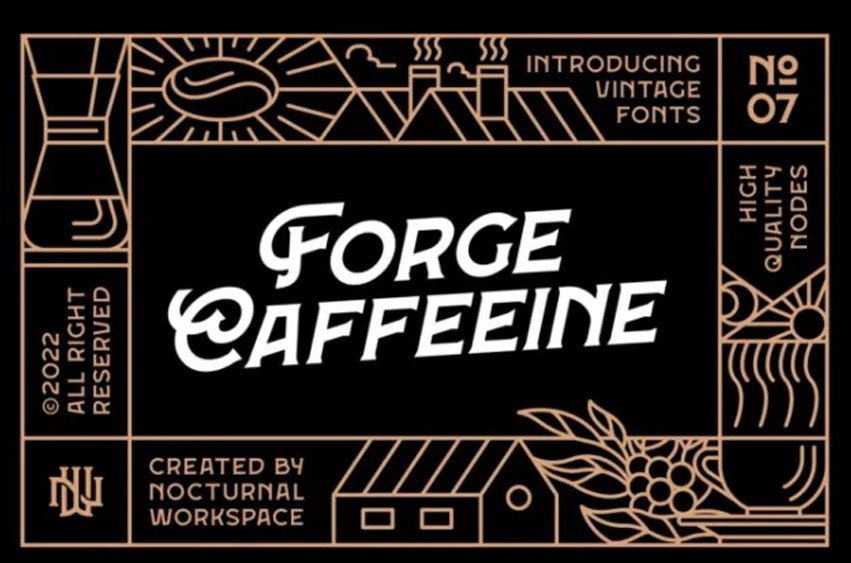
Forge Caffeeine Book Font is suitable for flyers, posters, novels, letterheads, or any design requirements you want to be awesome.
FEATURES
- Standard Ligature
- Stylistic Alternate
- Fraction, Numerator, Denominator
- Includes a range of multilingual characters.